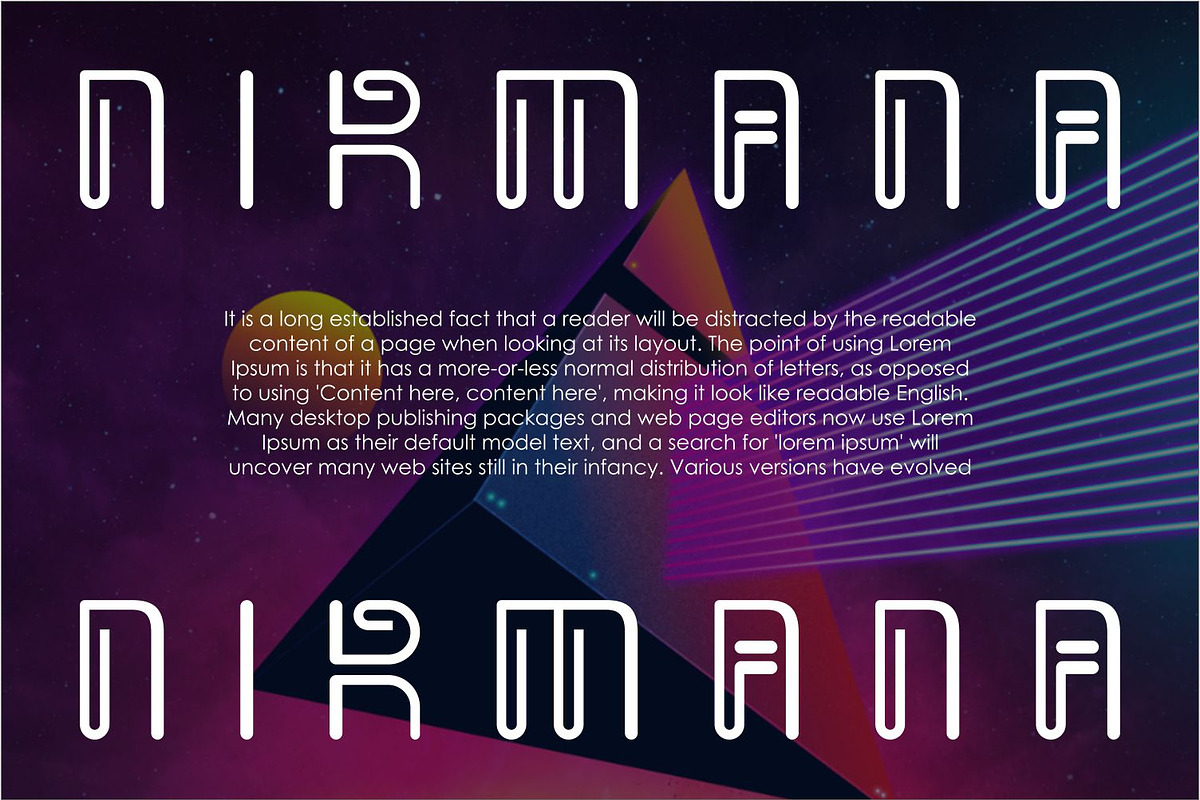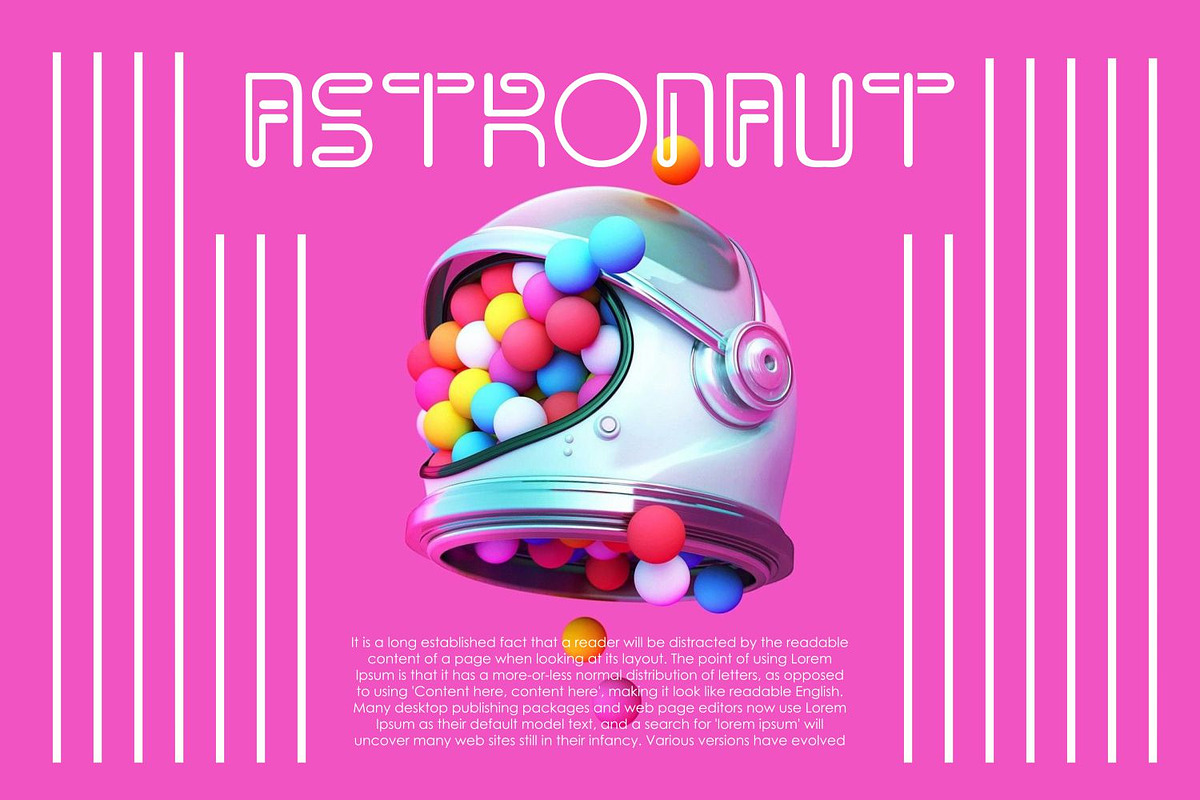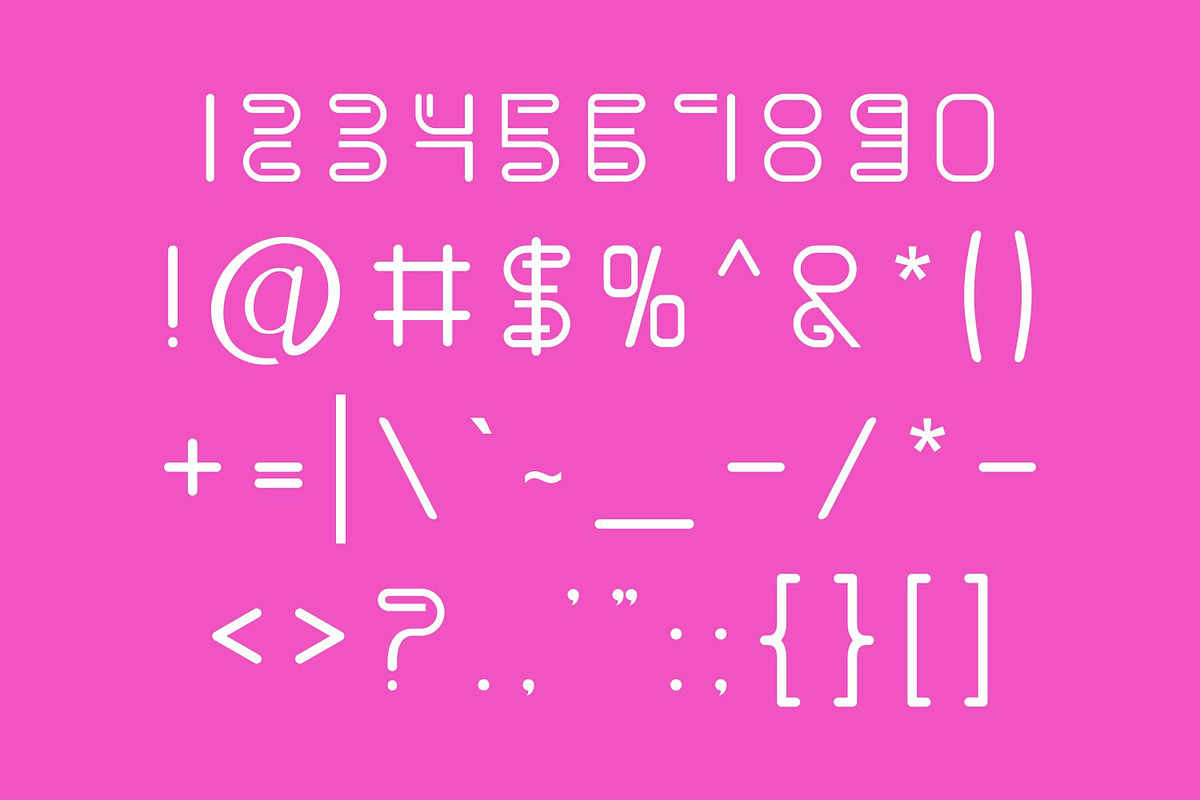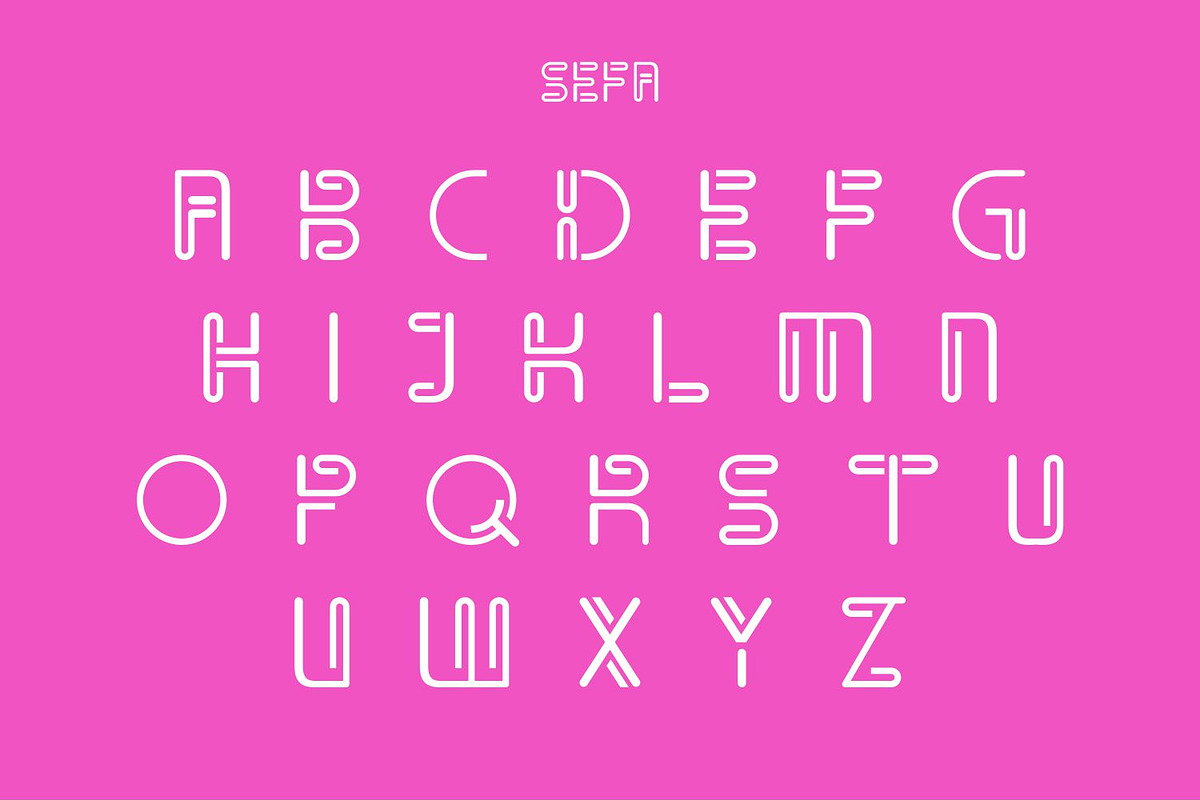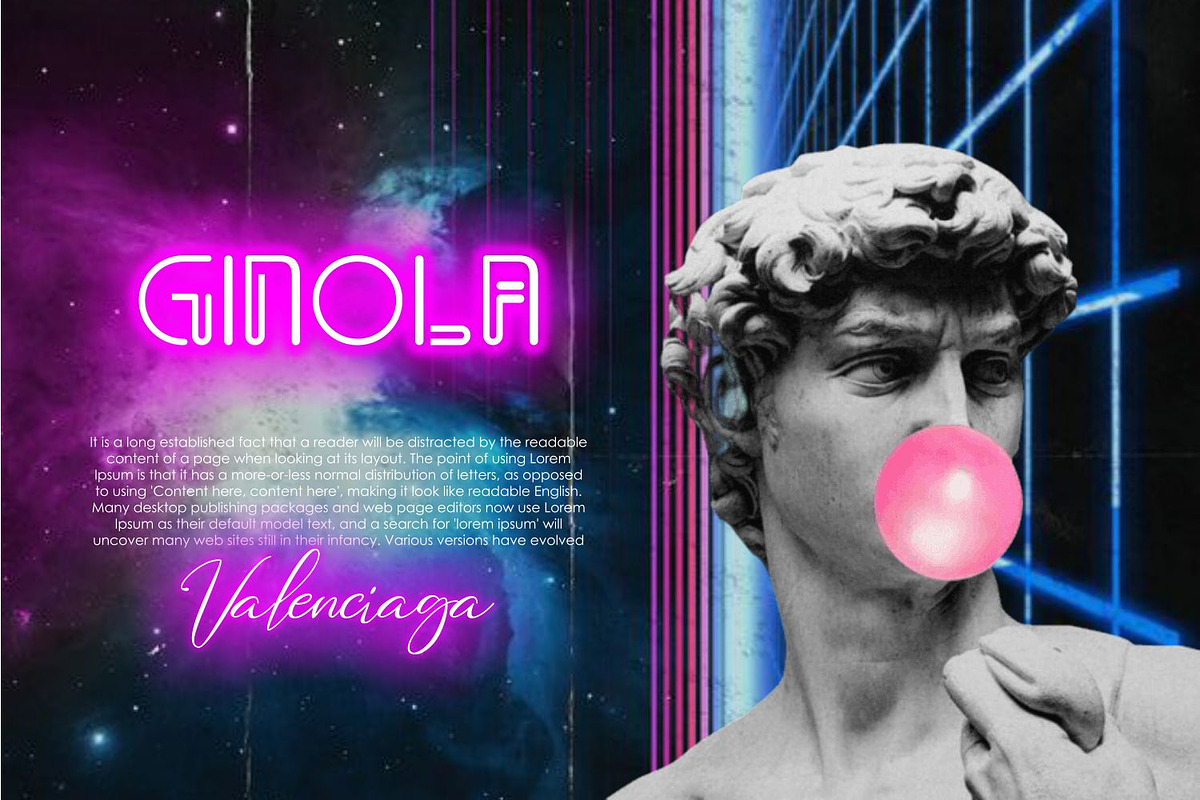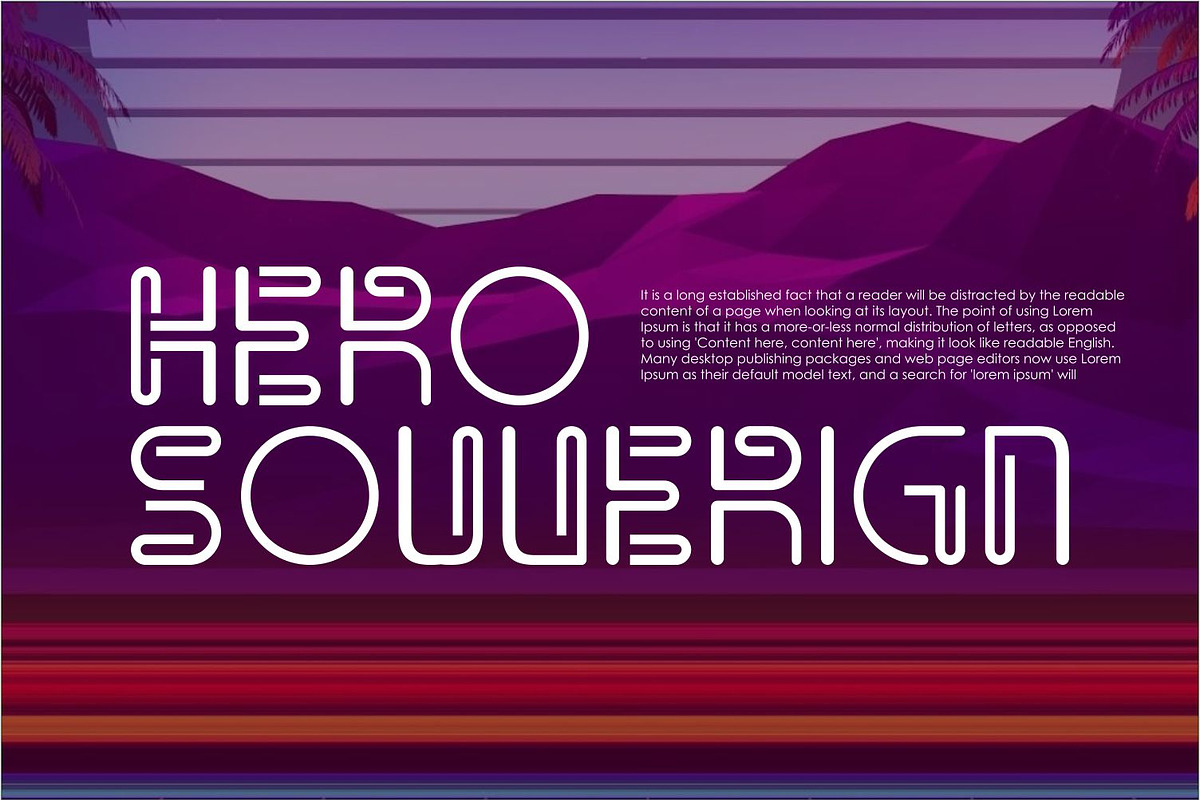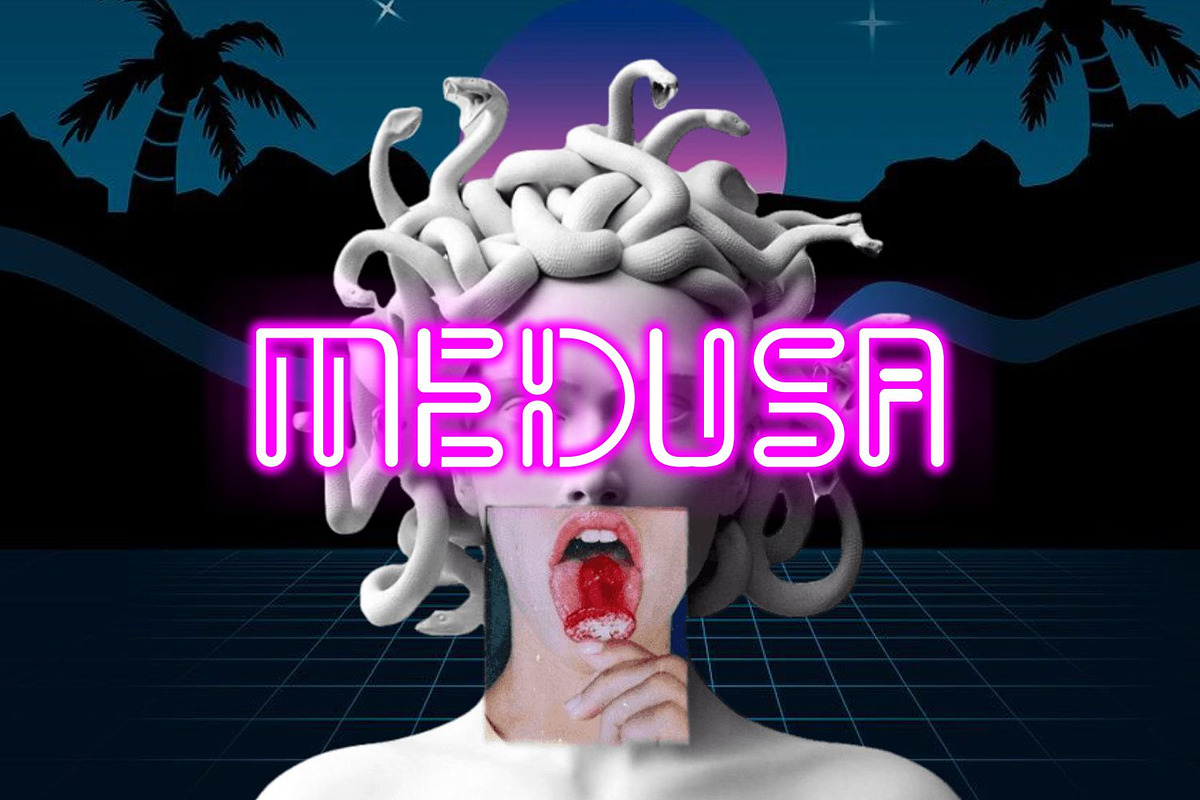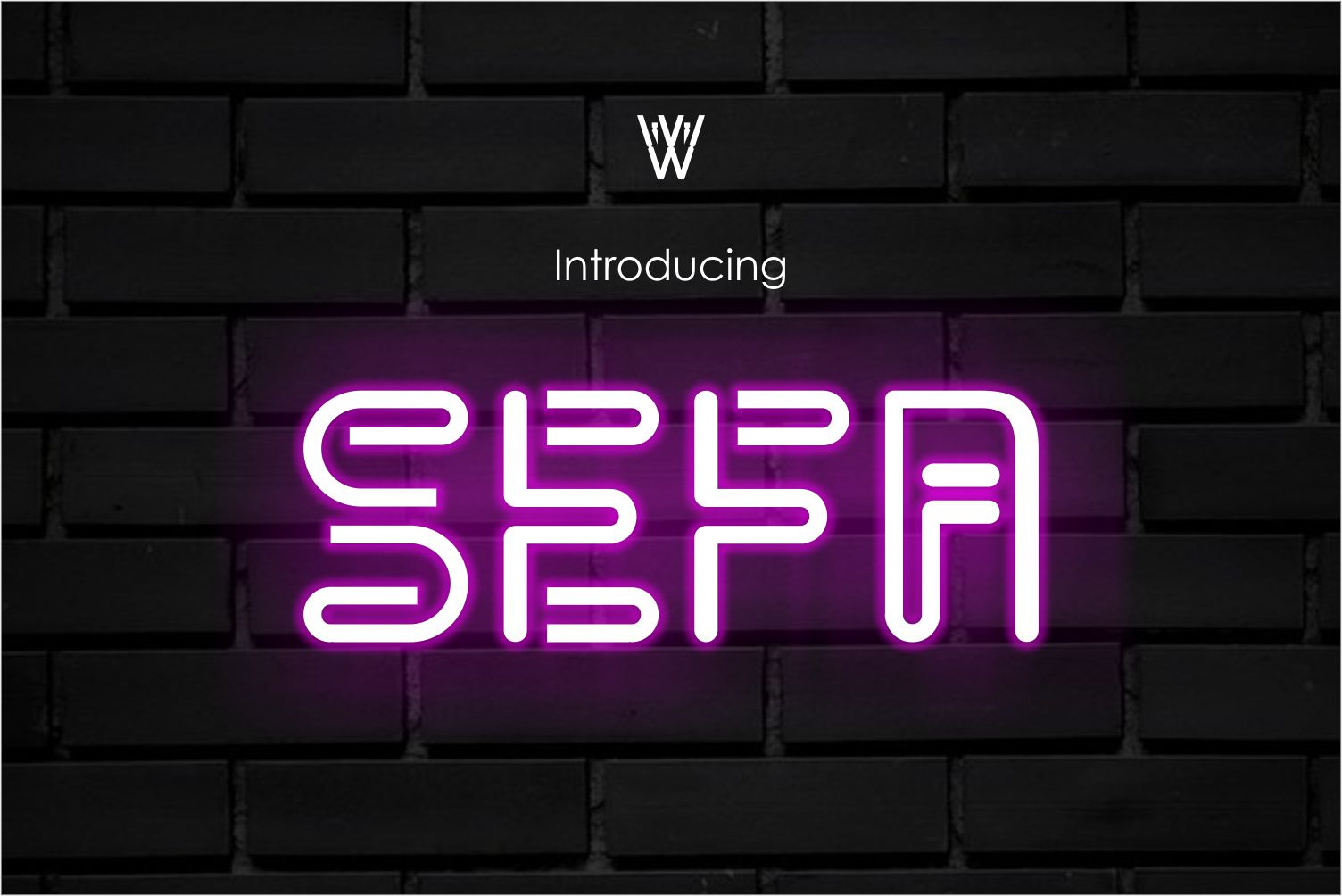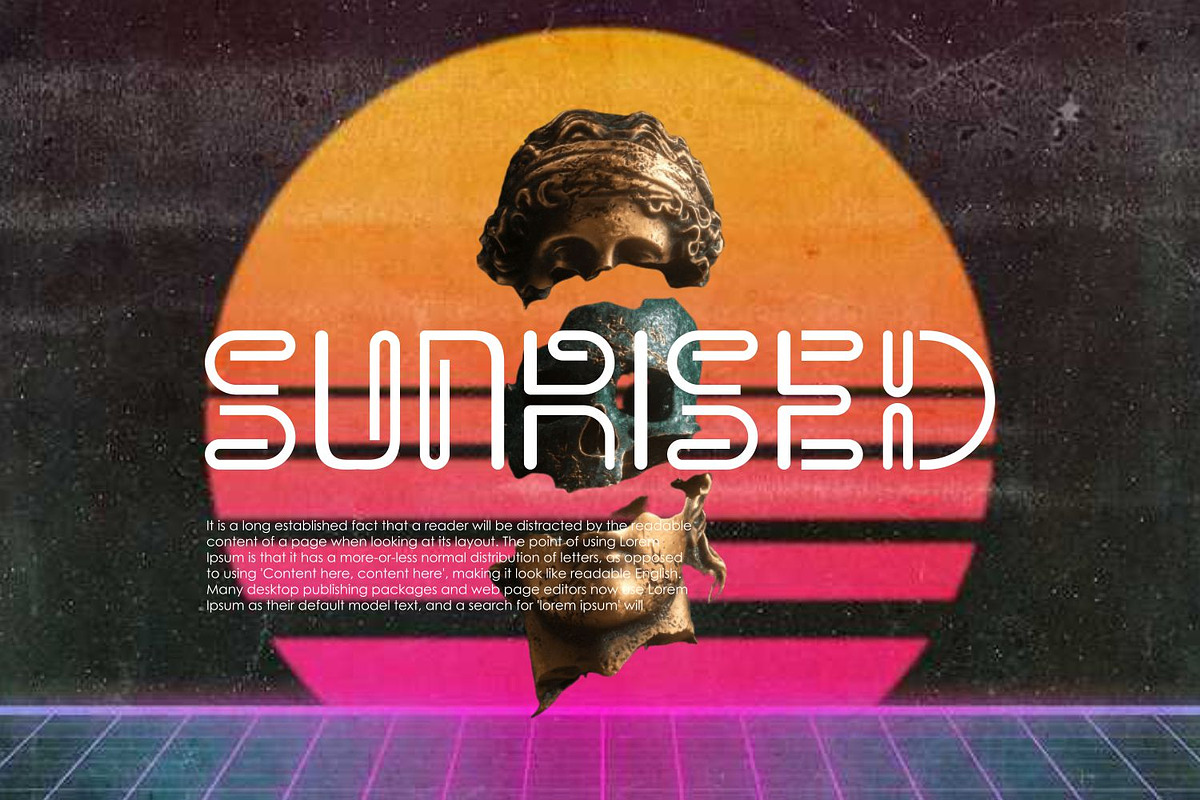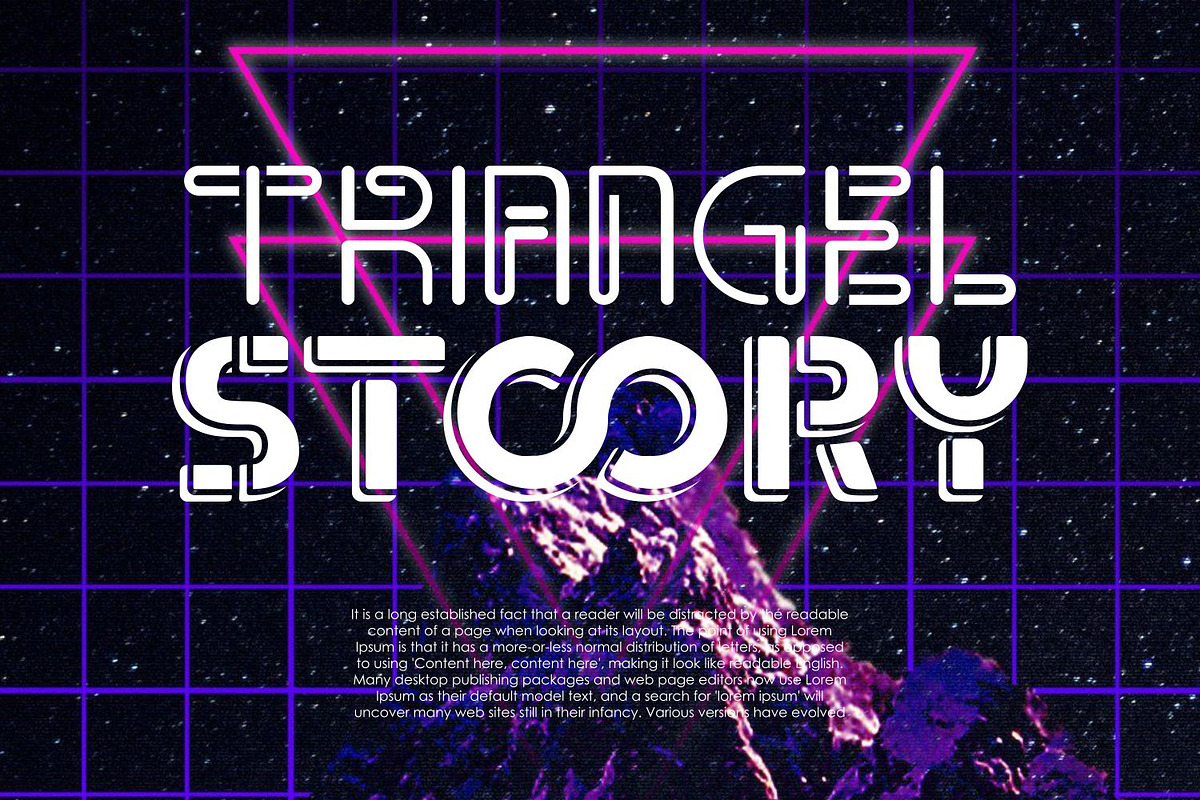
Sefa Mono Line Sans Neon font
The Sefa Font is a cutting-edge futuristic typeface that embodies innovation and forward-thinking design. With its sleek lines and geometric shapes, this font brings a sense of modernity and sophistication to any project. Whether you’re designing for technology, sci-fi, or futuristic themes, the Sefa Font adds a futuristic flair that captivates the viewer. Its clean and minimalist design makes it versatile for various applications, from logos to digital artwork. Embrace the future of design with the Sefa Font